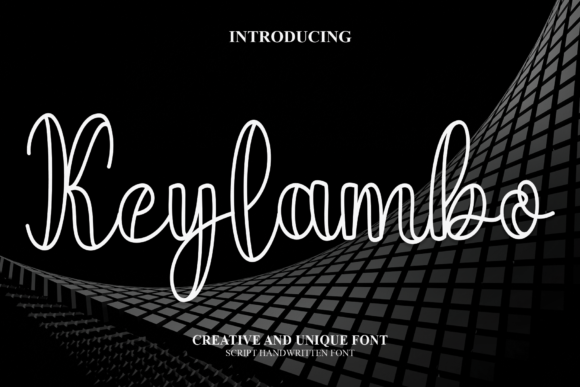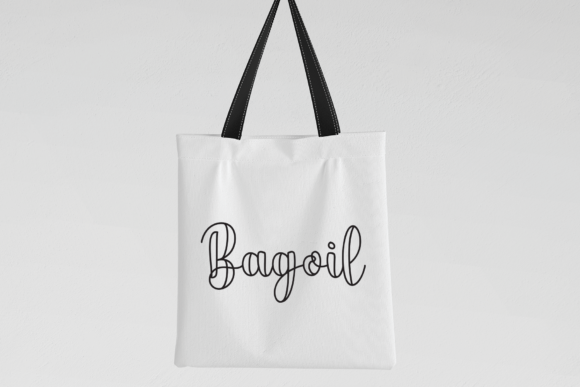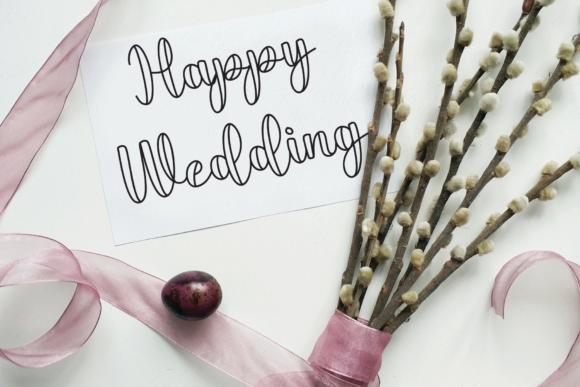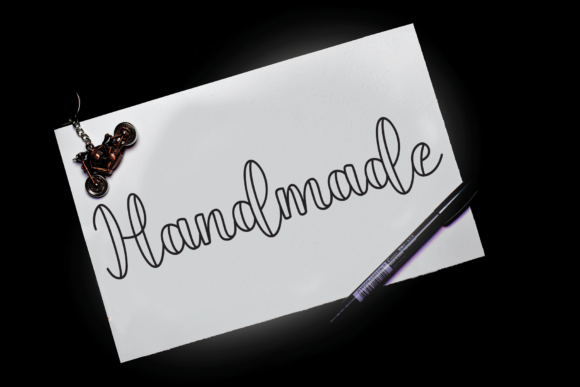
About Keylambo Font
“Keylambo” is an exquisite handwritten font that exudes elegance and charm. With its flowing strokes and graceful curves, it adds a touch of sophistication to any project. Whether you’re creating wall hangings, wedding invitations, social media post logos, advertising materials, product packaging, labels, or stationery, “Keylambo” is the perfect choice for adding impressive typography to your designs.
This font’s versatility makes it suitable for a wide range of applications. Its refined appearance lends itself well to both formal and informal projects, making it ideal for everything from elegant wedding stationery to eye-catching social media graphics. Whether you’re designing for print or digital media, “Keylambo” delivers exceptional results that are sure to captivate your audience.
One of the standout features of “Keylambo” is its smooth and consistent letterforms, which ensure readability and legibility across various design contexts. Additionally, its flowing style adds a sense of fluidity and movement to your typography, creating a visually pleasing effect that draws the viewer in.
With its timeless elegance and impeccable craftsmanship, “Keylambo” is sure to elevate your designs and leave a lasting impression. Whether you’re a professional designer or a DIY enthusiast, this beautiful handwritten font is a must-have addition to your creative toolkit.